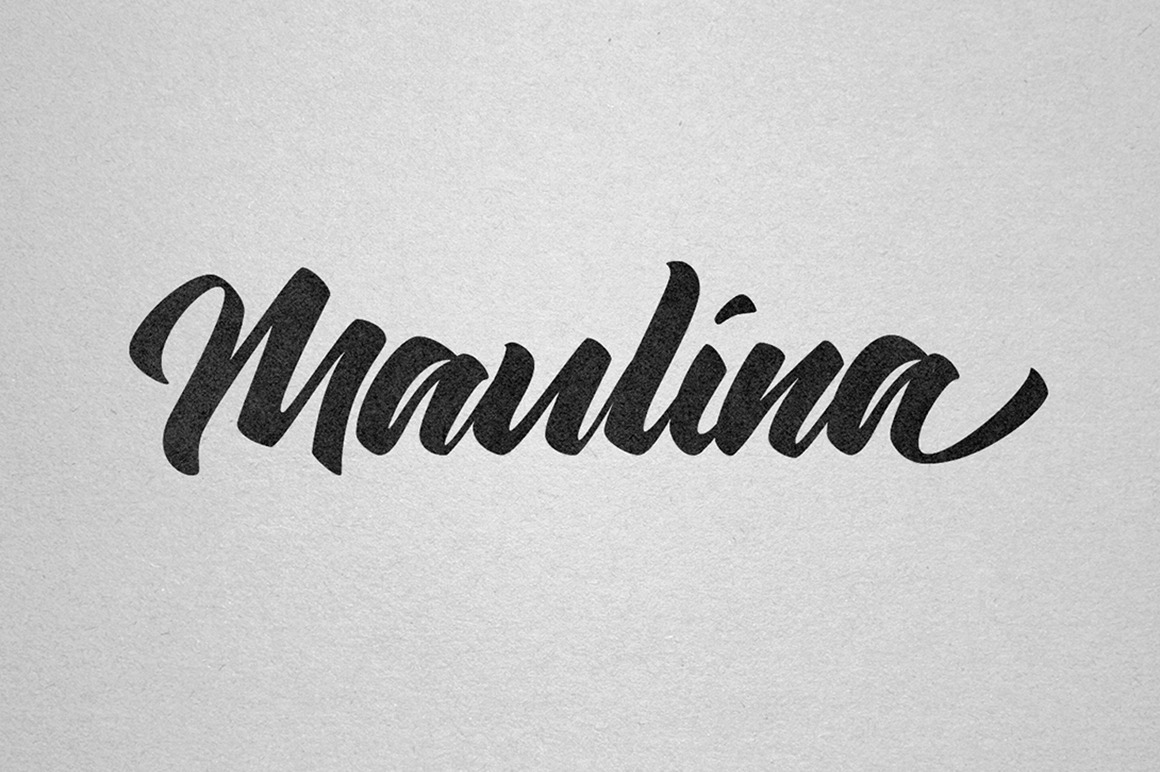
Maulina Typeface
Maulina is a script typeface with personality. It was designed as a display typeface. You can use it as a logo, badge, insignia, packaging, headline, poster, t-shirt/apparel, greeting card, and wedding invitation. The flowing characters are ideal to make an attractive messages, mix and match Maulina with a bunch of alternative characters to fit your project.